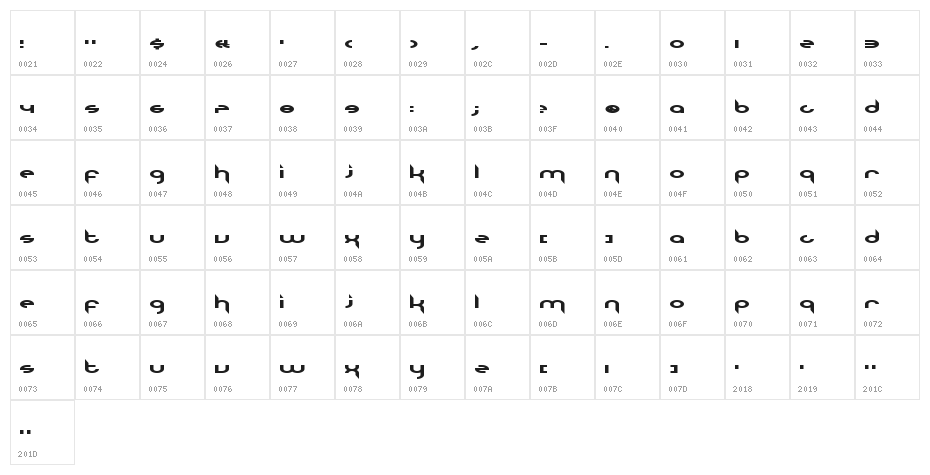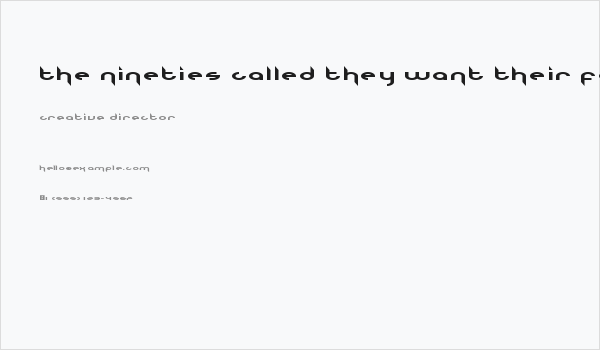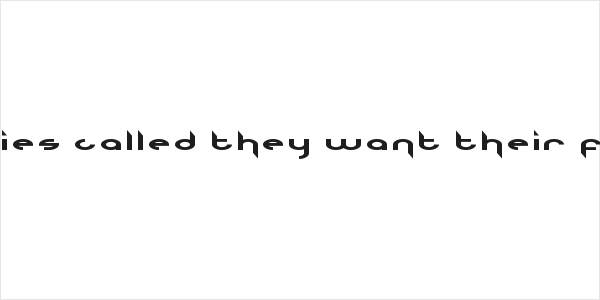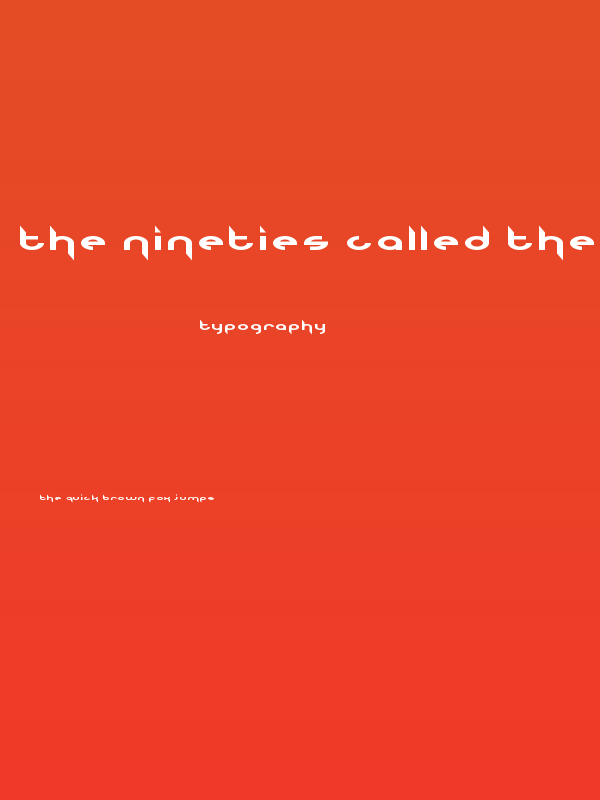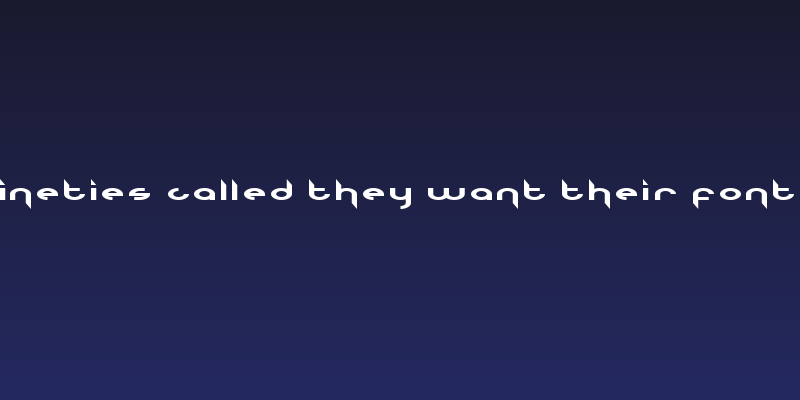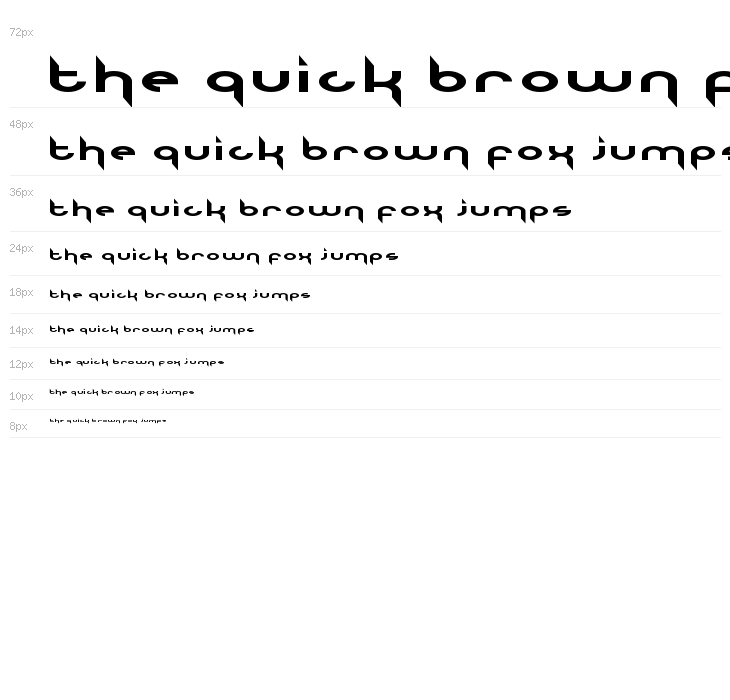
The Nineties Called They Want Their Font Back Font
The Nineties Called They Want Their Font Back Description
This font features a bold, futuristic design with sharp angles and geometric shapes. The characters are distinct with a unique blend of curves and straight lines, giving it a dynamic and edgy appearance. The uppercase and lowercase letters maintain a consistent style, with the lowercase letters mirroring the angular design of the uppercase. Numbers and special characters follow the same aesthetic, ensuring a cohesive look across all elements. The font's style is reminiscent of retro-futuristic themes, making it ideal for projects that require a bold and modern touch.
| Overall Style | Futuristic, Retro |
| Proposed Projects | Ideal for sci-fi themed posters, video game titles, tech branding, and futuristic designs. |